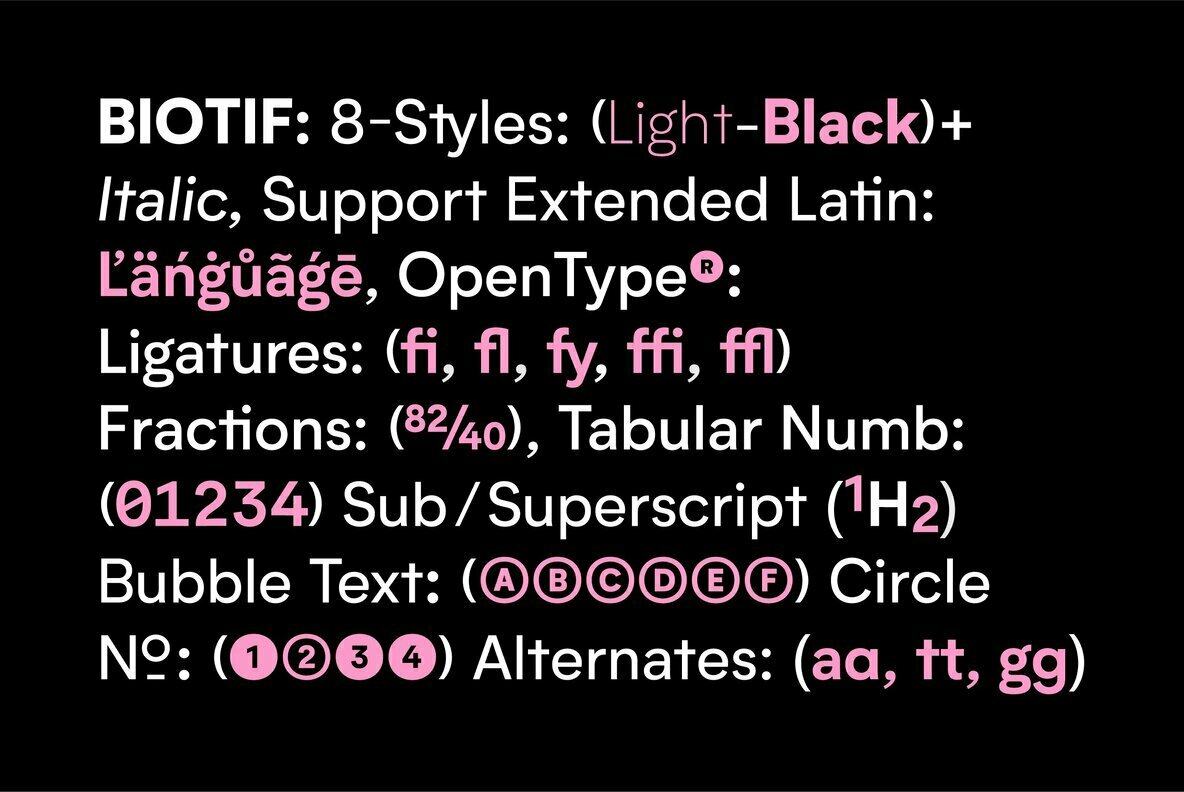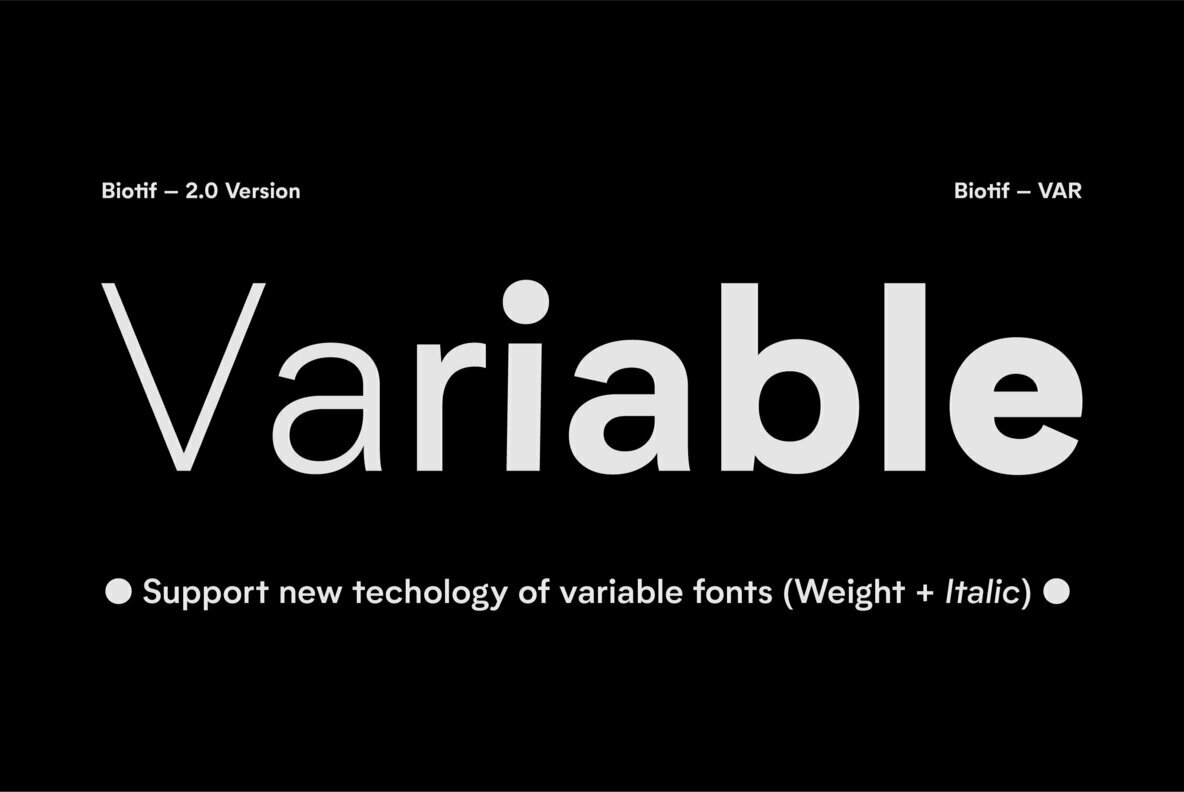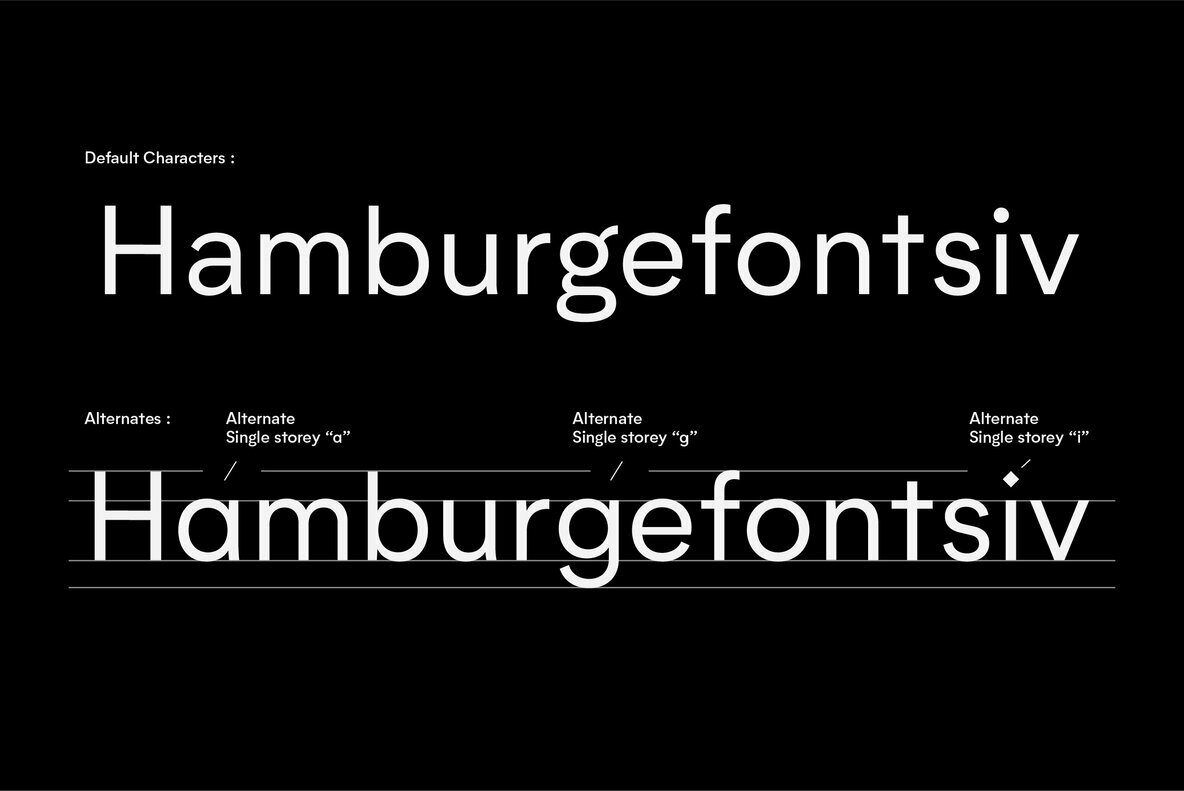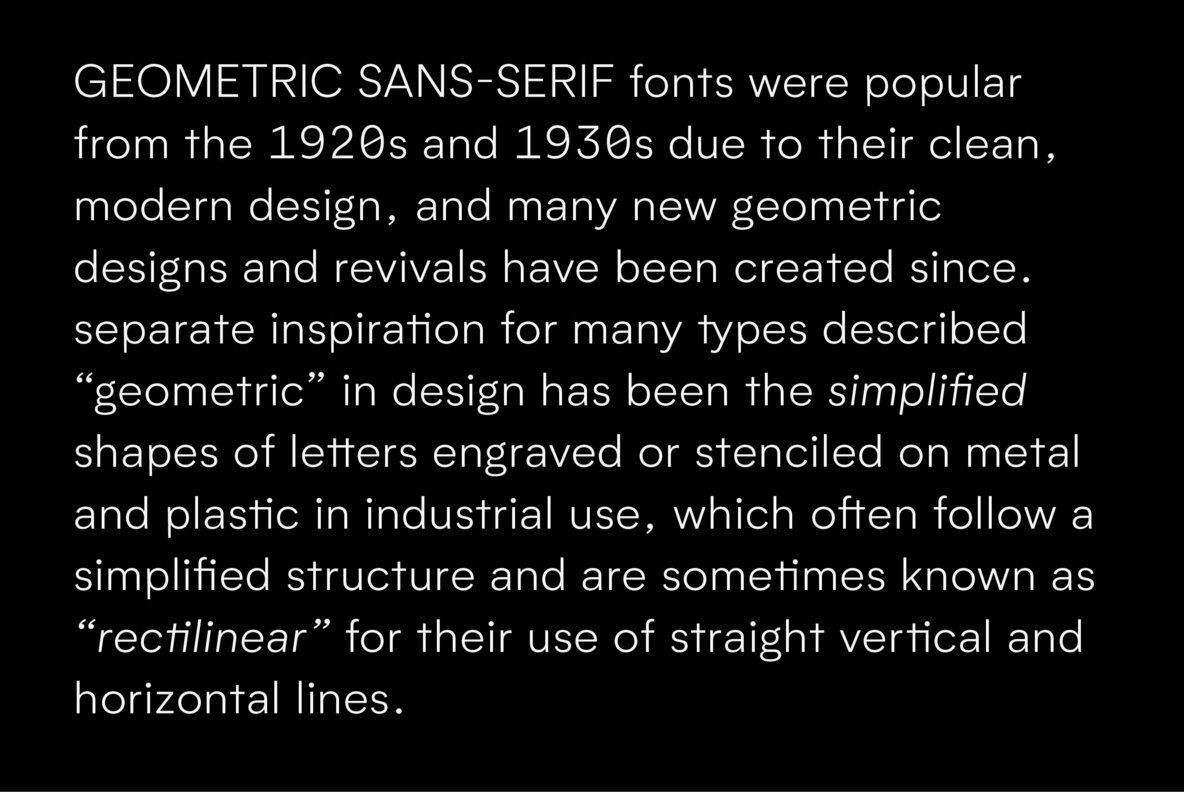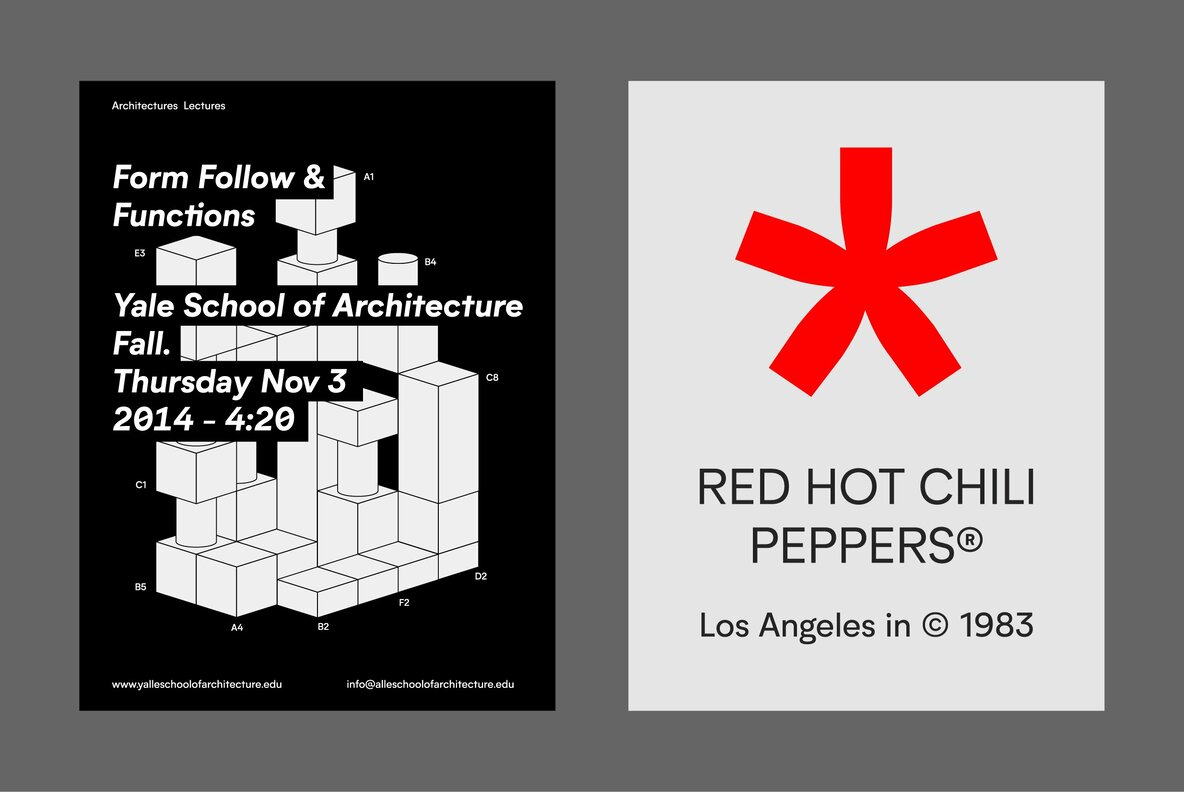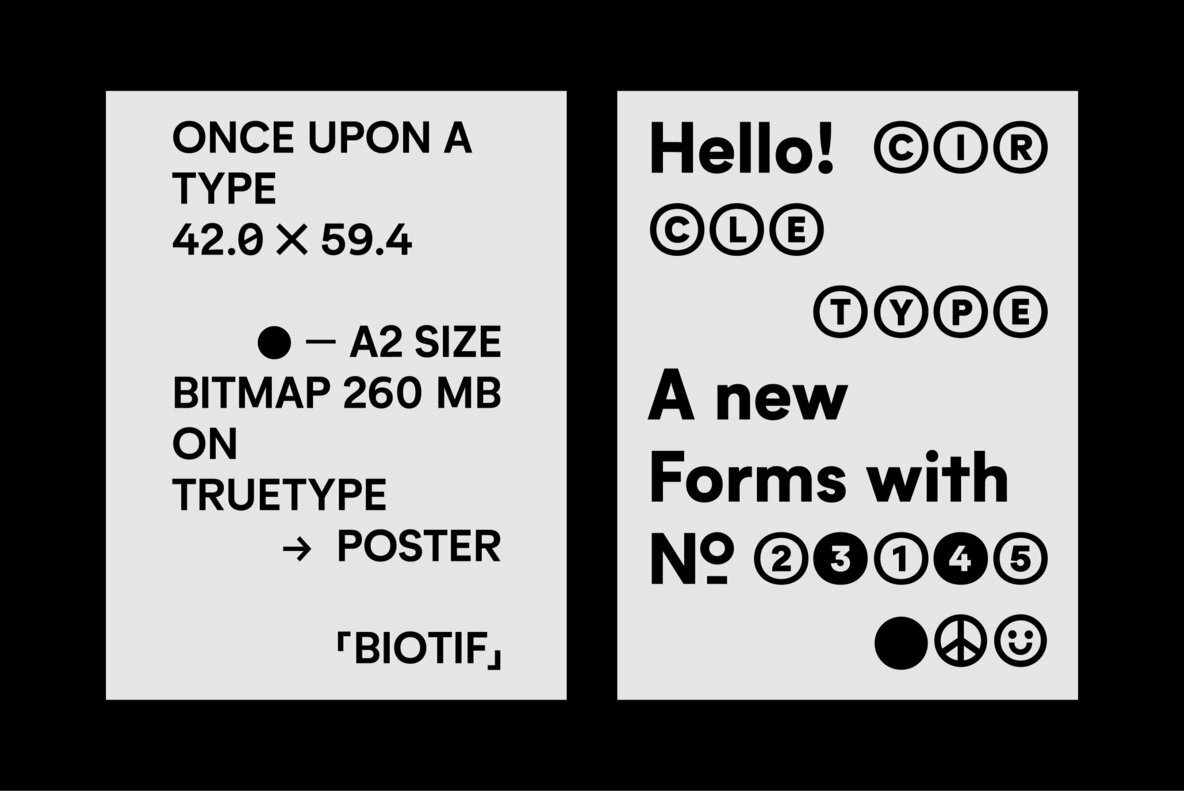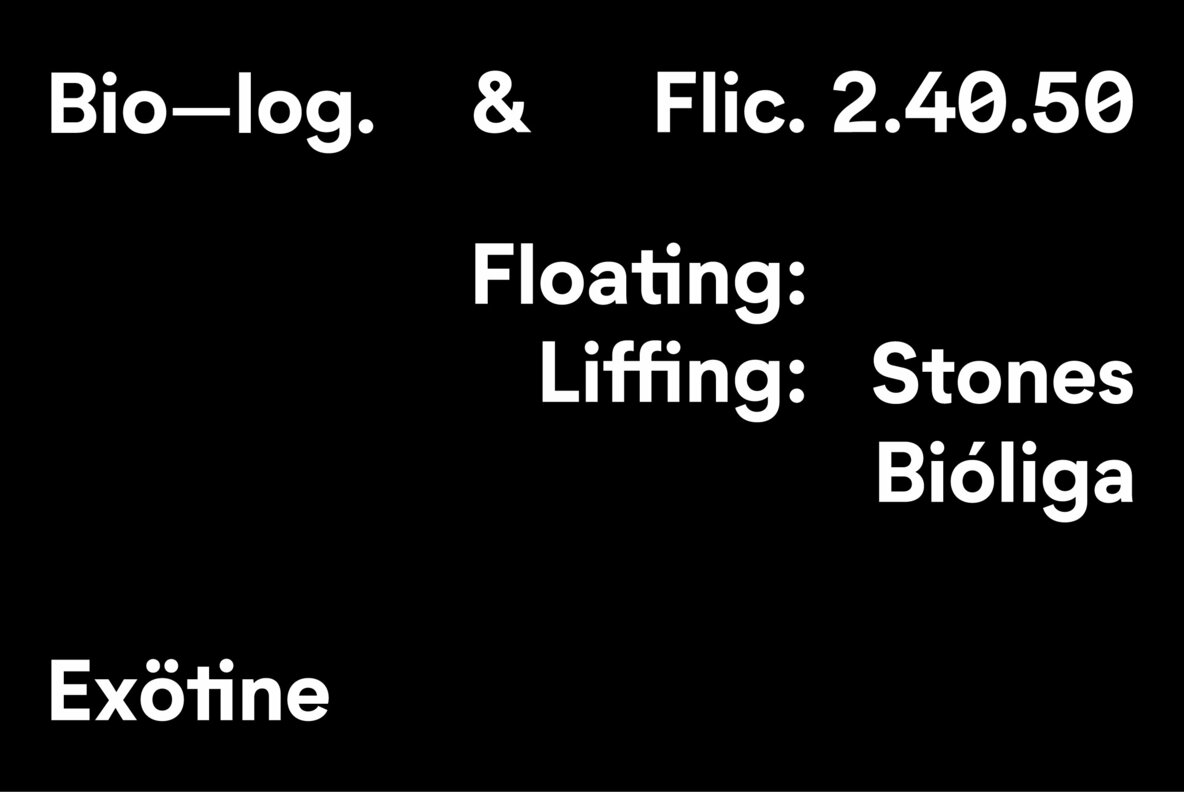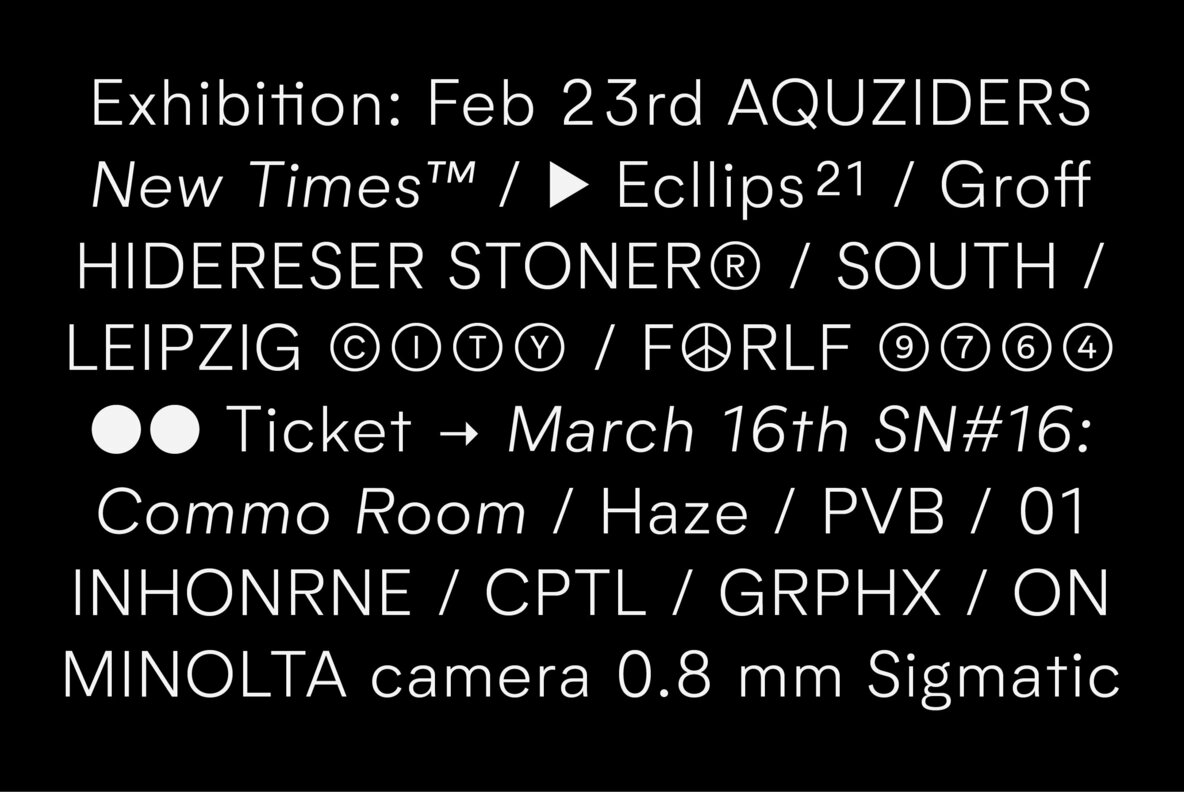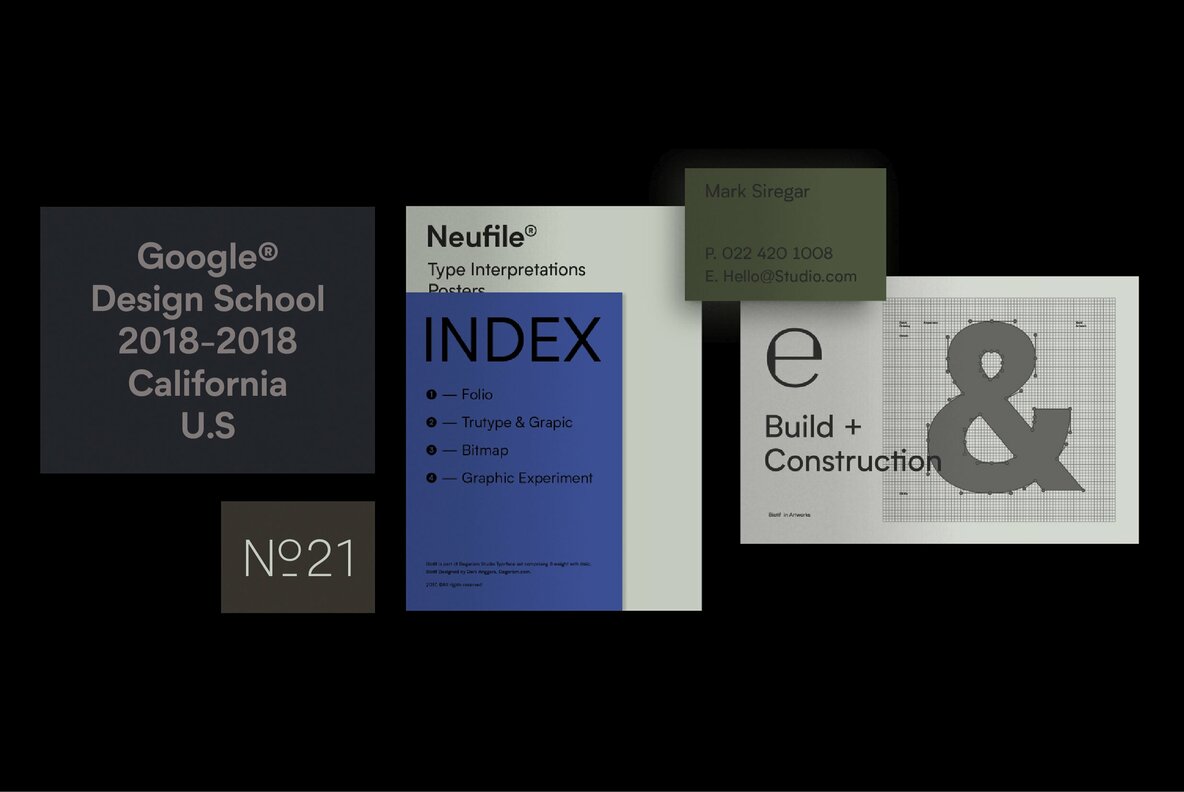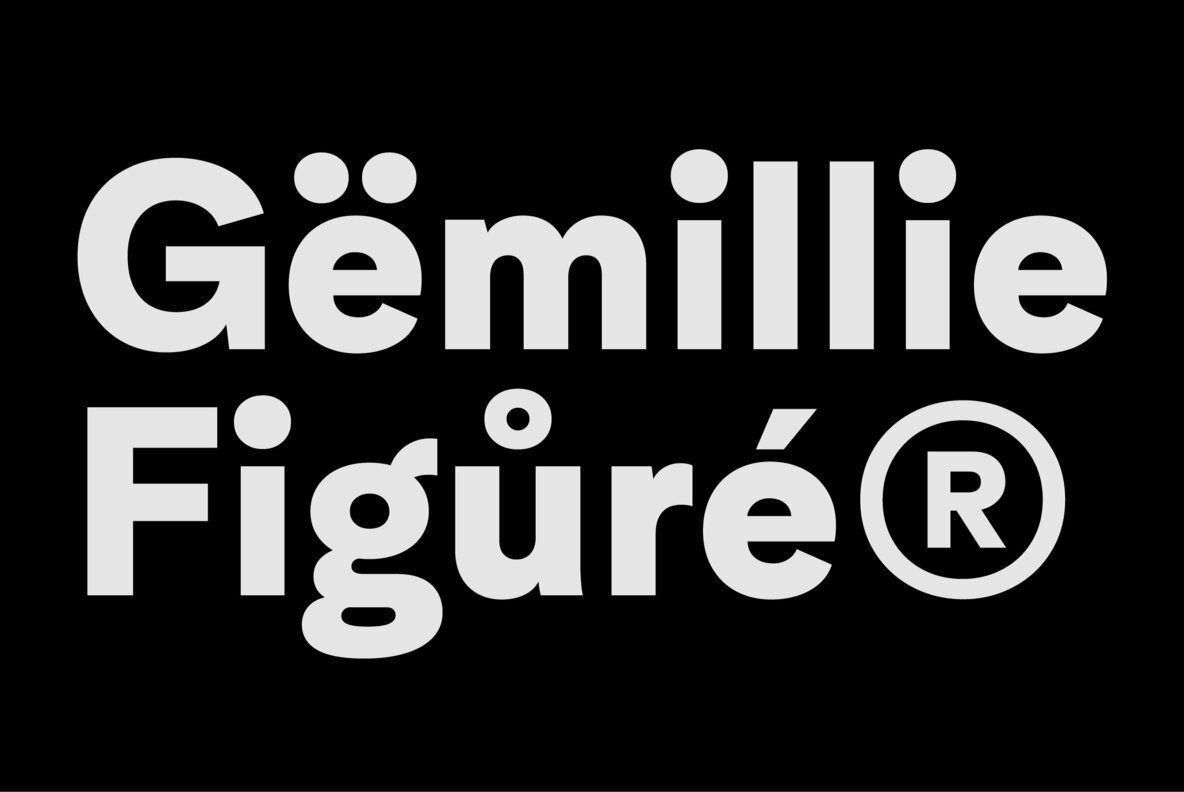
Biotif Font
Biotif offers a striking 16-weight geometric sans-serif design, merging modern influences with the industrial graphic design era. Its boldness makes it a standout choice, ideal for impactful design projects. With modern clean lines, it is perfectly suited for headlines, posters, branding initiatives, and advertising campaigns. Biotif's robust and legible structure is versatile enough for both digital and print media, making it an excellent choice for statement web design or large format graphics.Biotif: Geometric Type Precision
- Redraw some characters that look rudimentary, and also I improve all the italic shapes to be more solid and balanced
- Added new family members are style Extra-Light plus Italic
- Adds some new characters to them: circle Alphabet, Alternative lowercase "t"
- The new version of Biotif typeface Already supports variable fonts.